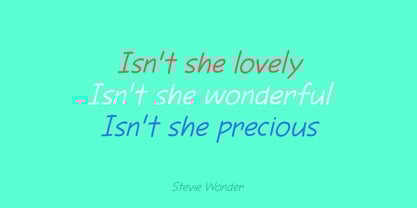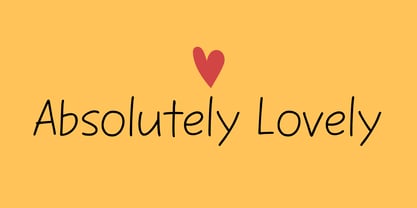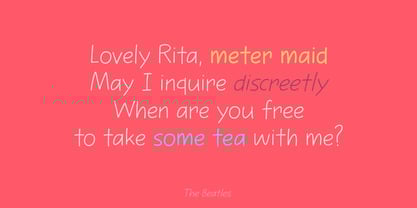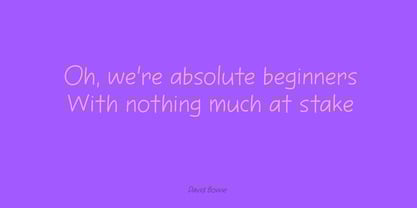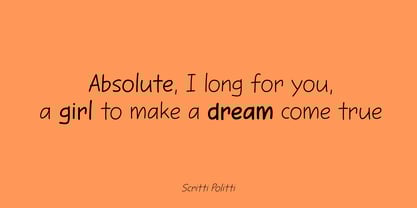
Absolutely Lovely
The Absolutely Lovely Font Family was designed by David Kerkhoff and published by Hanoded. Absolutely Lovely contains 6 styles and family package options. More about this family
With so much bad news going on in the world today, I thought a lovely font with an absolutely lovely name was what the masses needed. Besides that, a friend told me that Mercury Retrograde starts on Saturday, March 15th, so you can use this font when everything in your life descends into chaos! ;-)
Absolutely Lovely is a handmade font. It comes win 3 weights, each with their Italic style.
Hanoded is run by Dutchman David Kerkhoff. His fonts are a mishmash of styles, as he just creates whatever pops into his head. You will find a lot of brush fonts in his collection, as his favourite tools are brushes and Chinese ink, with cartoon style fonts and script fonts complementing his repertoire. Aside from making fonts, David occasionally guides tours in far-flung places, renovates his '30's house and tries reasoning with his wife and (teenage) kids. Not an easy task!